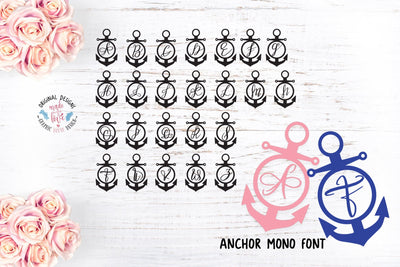
Anchor Mono Font
Anchor Mono is a Decorative Font ideal to Create Monograms and Initials. Easy to install just drag and drop to your Fonts File Folder.
Turn to Vector and combine anchors together to create your own design.